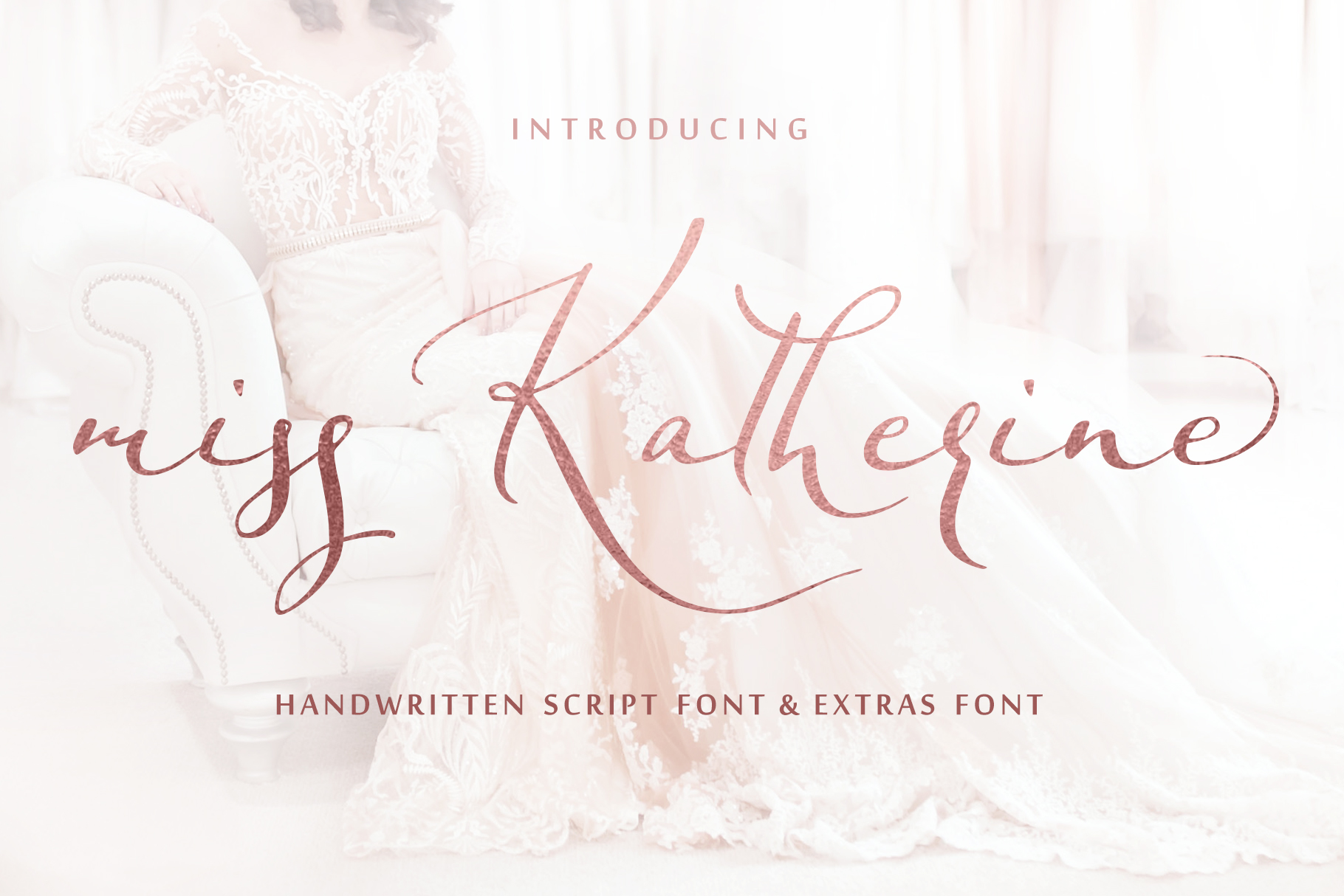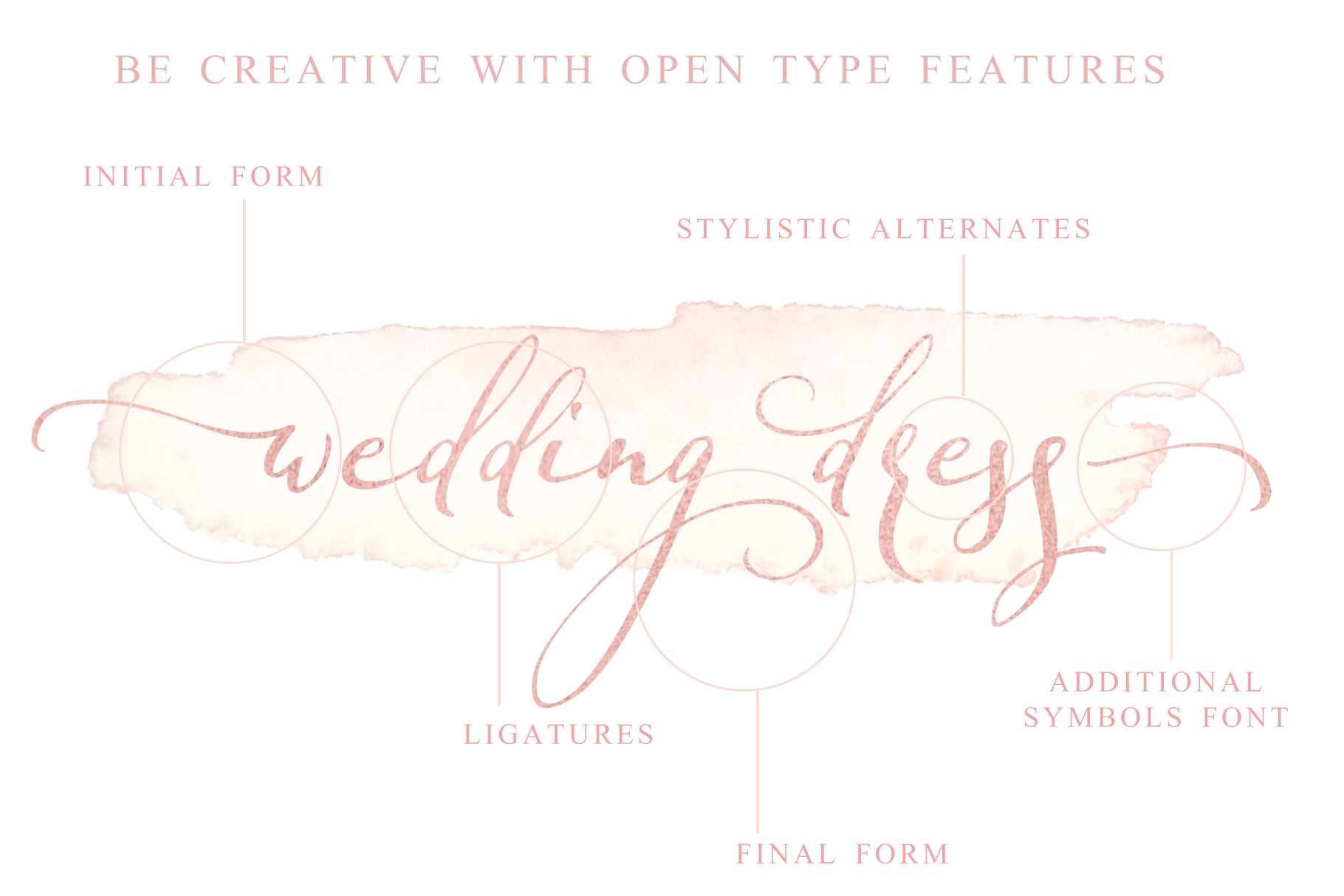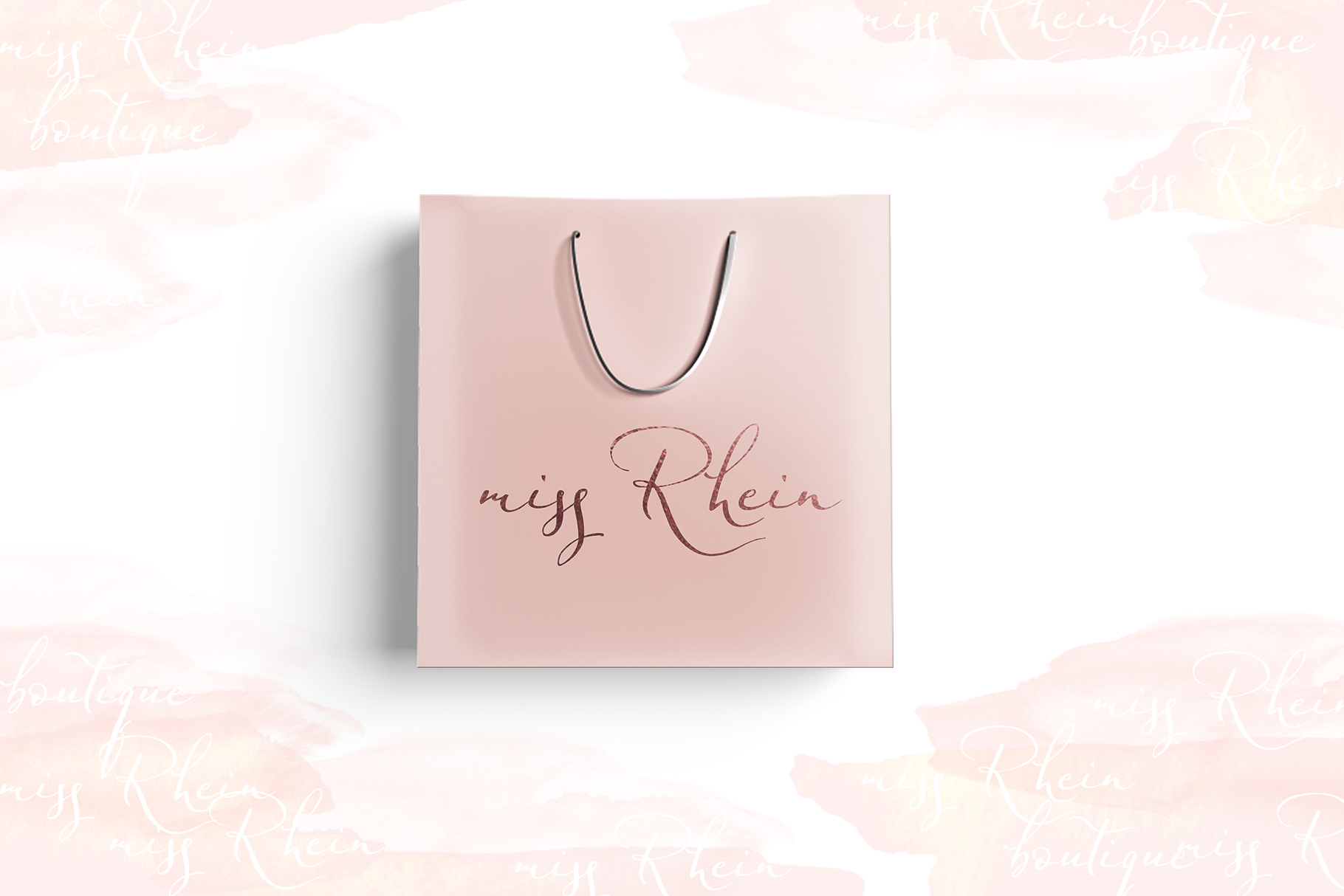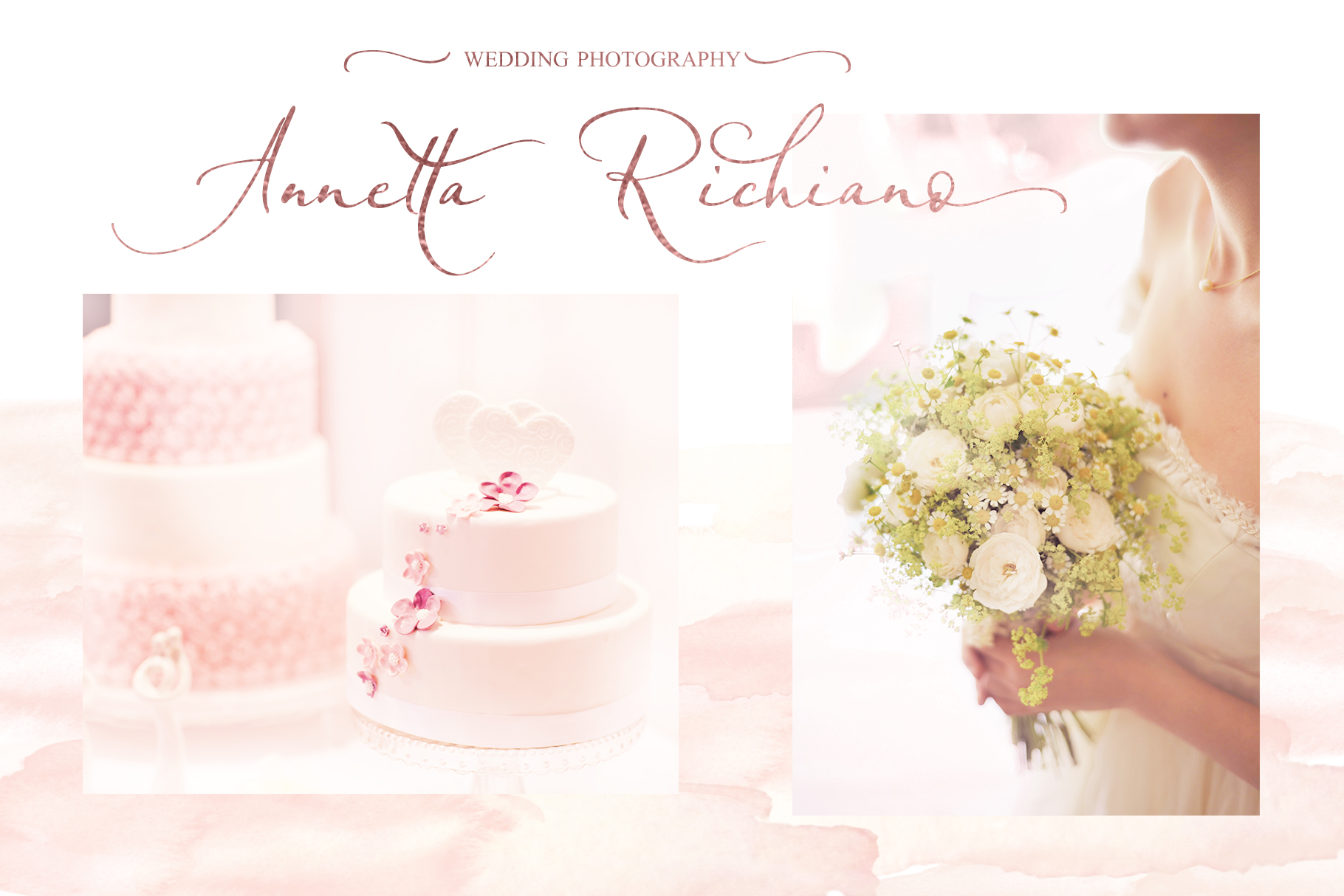
Miss Katherine Font + Extras
This is going to be the best day of her life!!!Today miss Katherine is the bride… I would like to tell you her romantic story with my new delicate and refined font: miss Katherine.
Miss Katherine script is a graceful, feminine, calligraphic handwritten script font. Its charming elegant style makes it perfect for use in your wedding invitations design, monograms, blog headlines or cards. Also, it will look great in gorgeous wedding stationery, typographic designs, posters and much more.